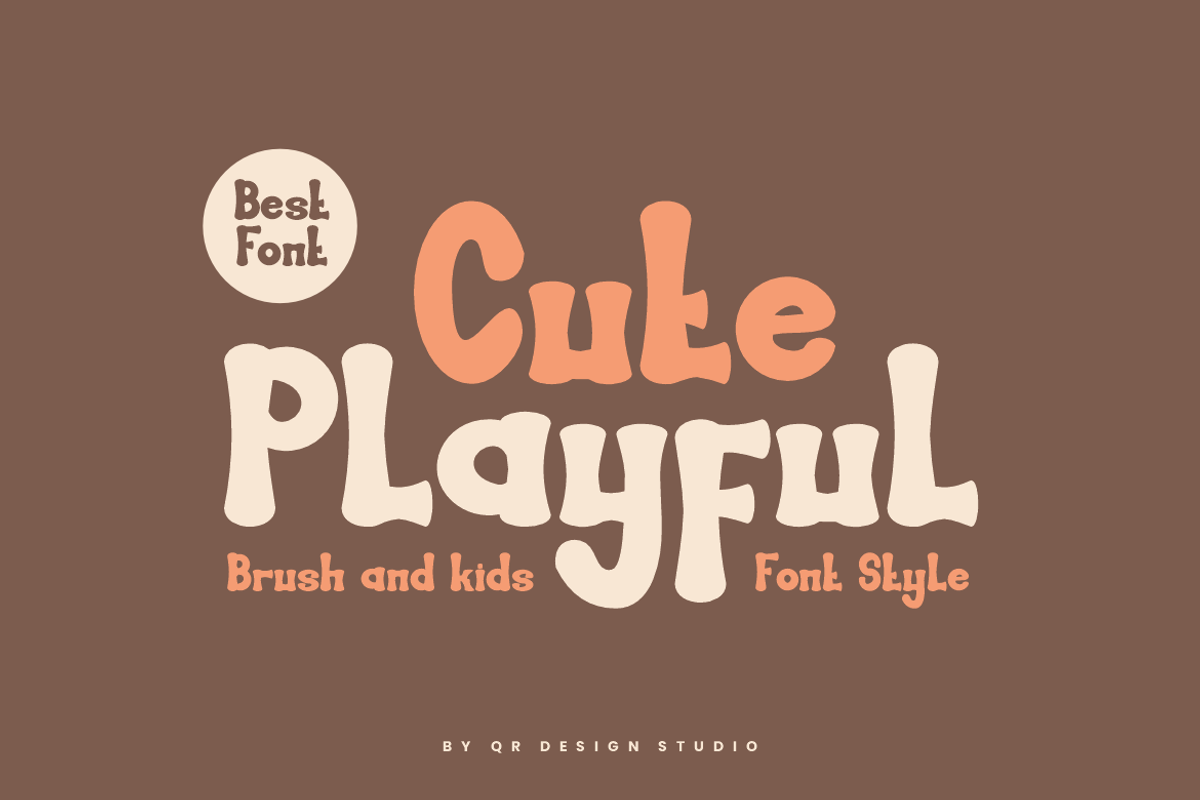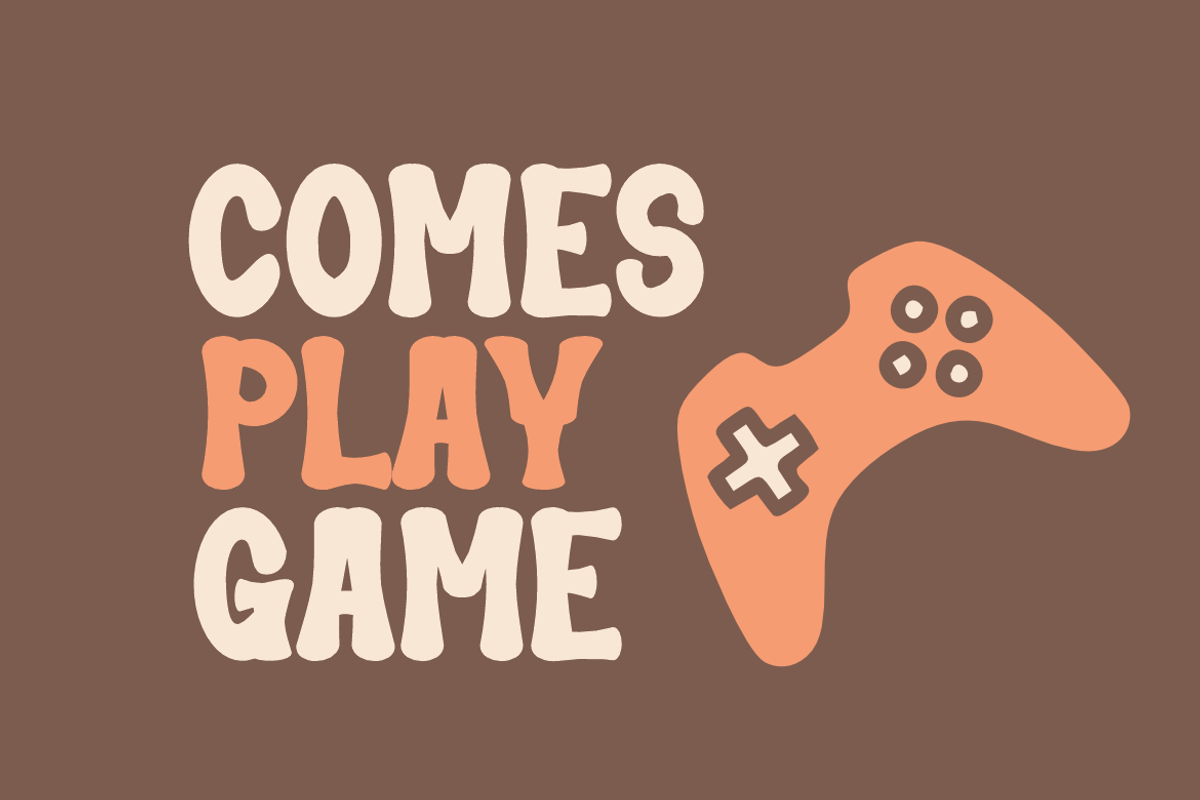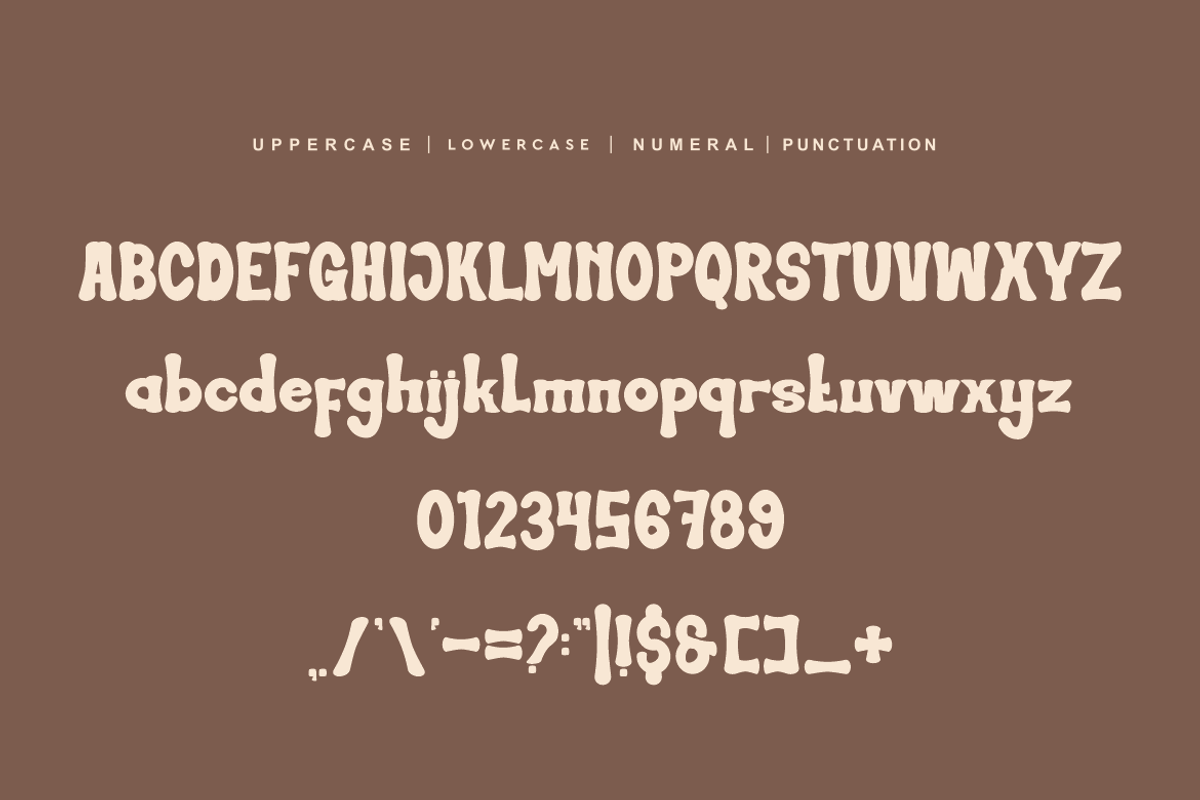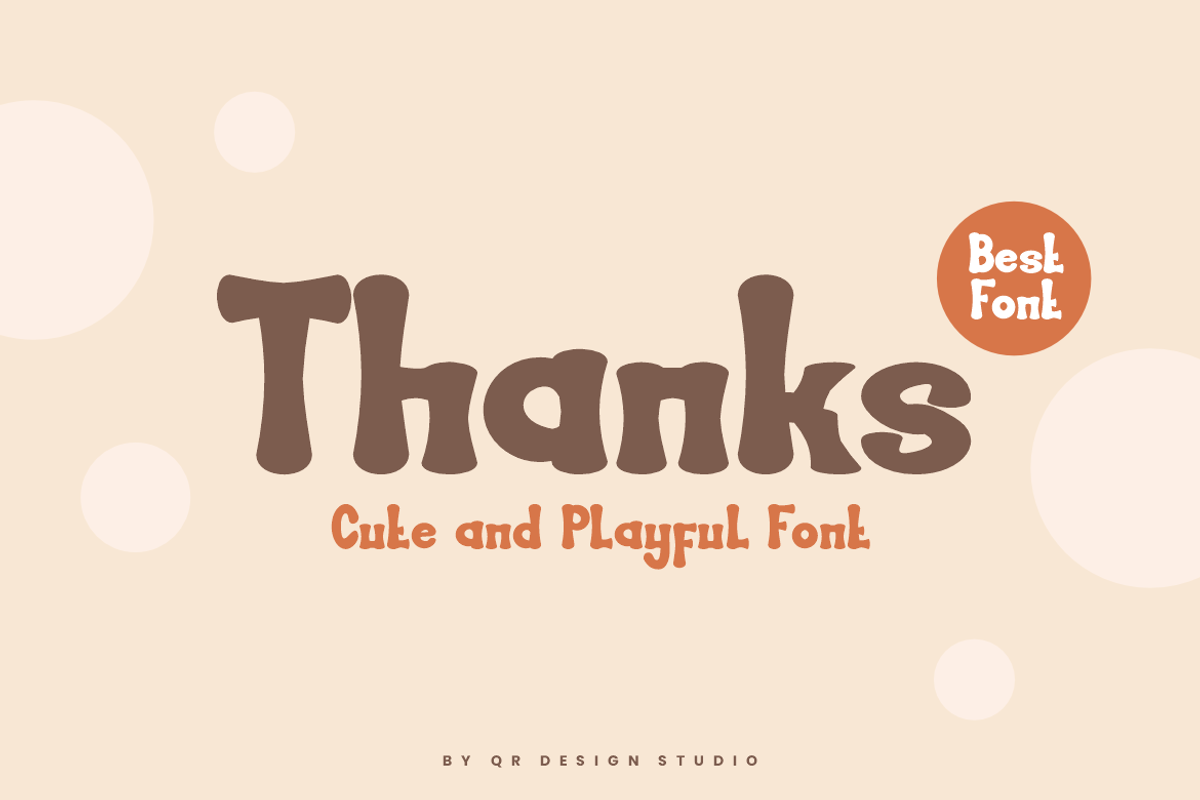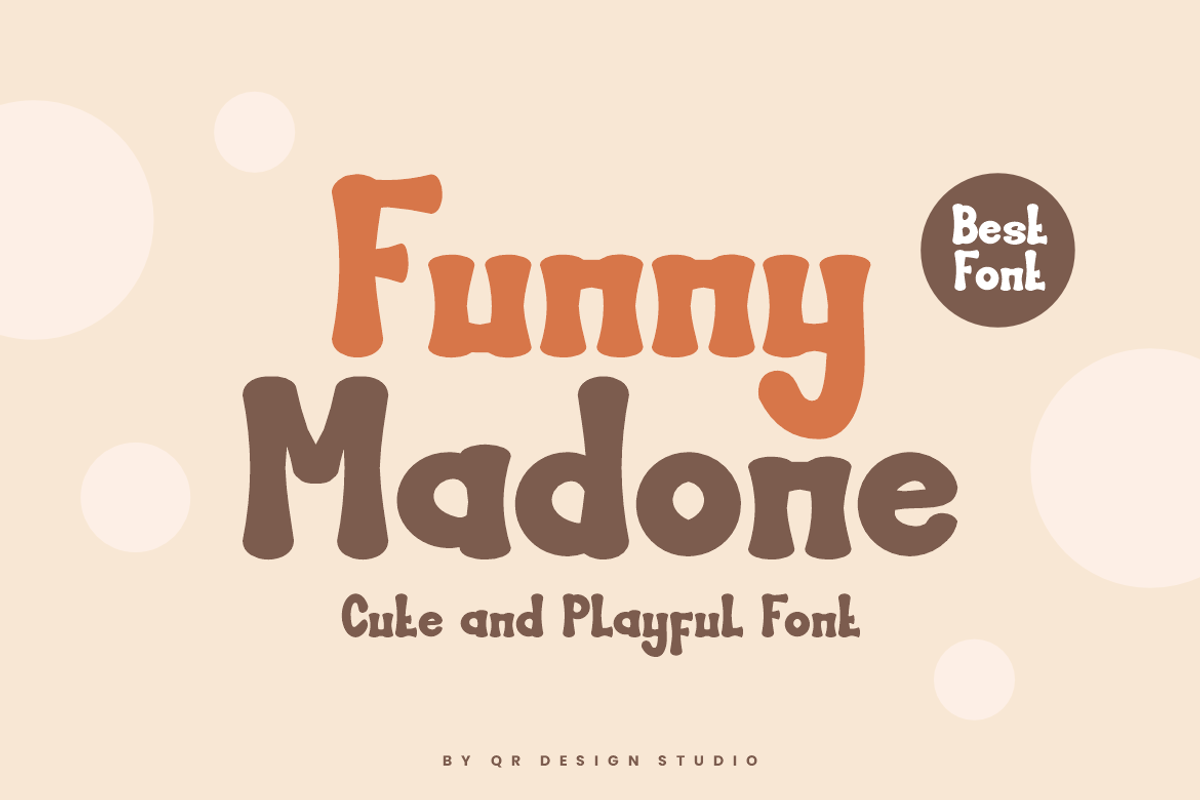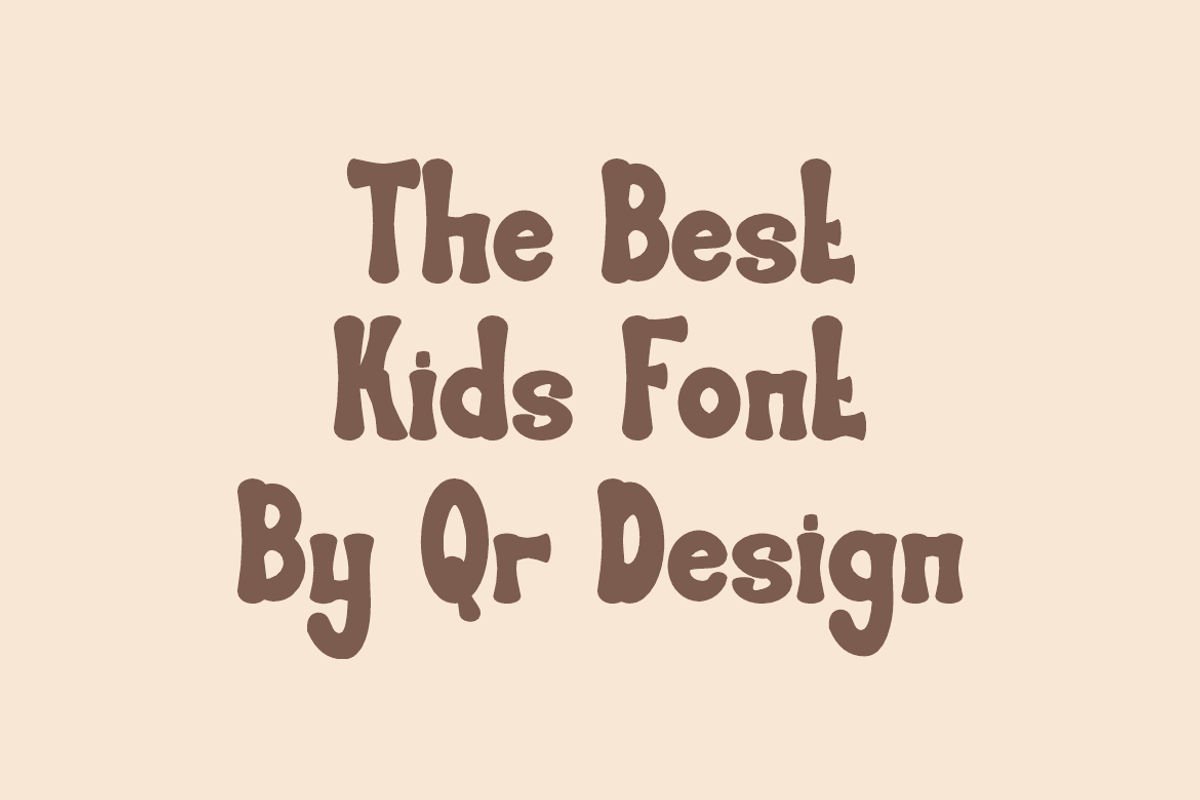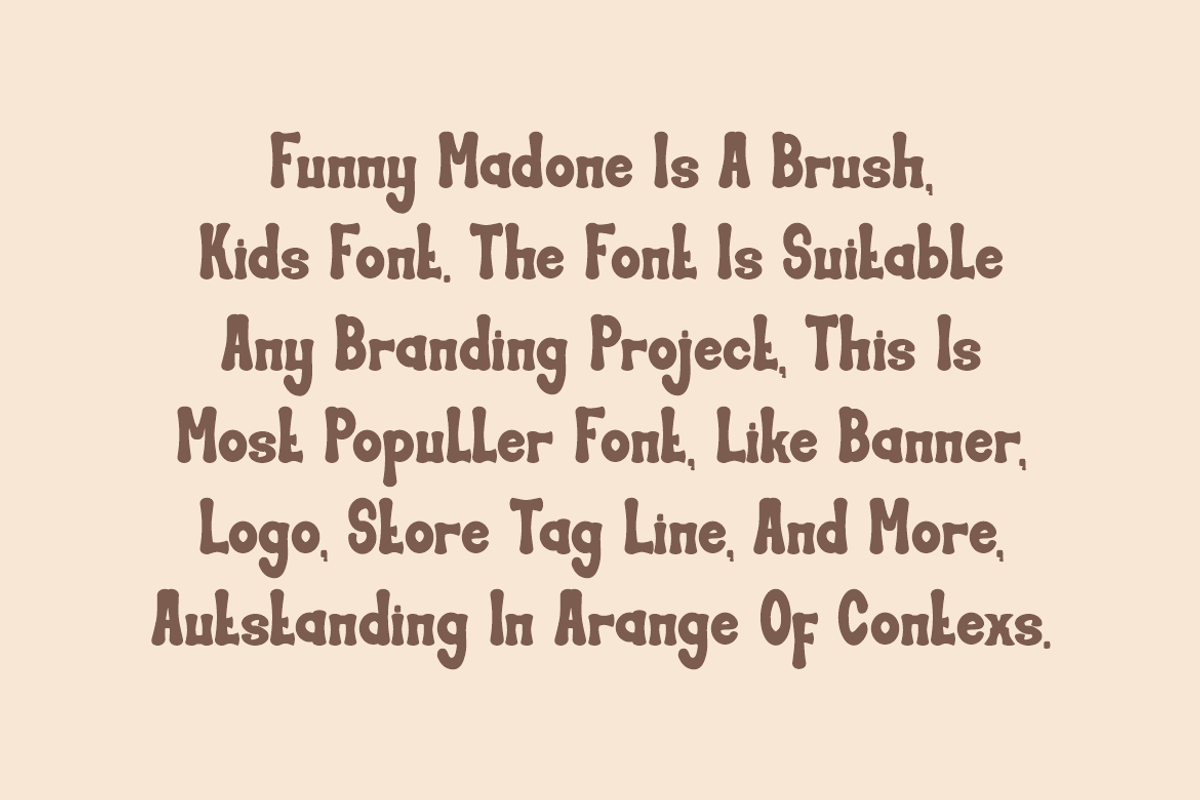
Funny Madone - Groovy & Cute Font
Funny Madone - Cute & Playful Font is a brush and authentic display font. The font is suitable for any branding project like poster, logo, sport, and many more. Outstanding in a wide range of contexts.